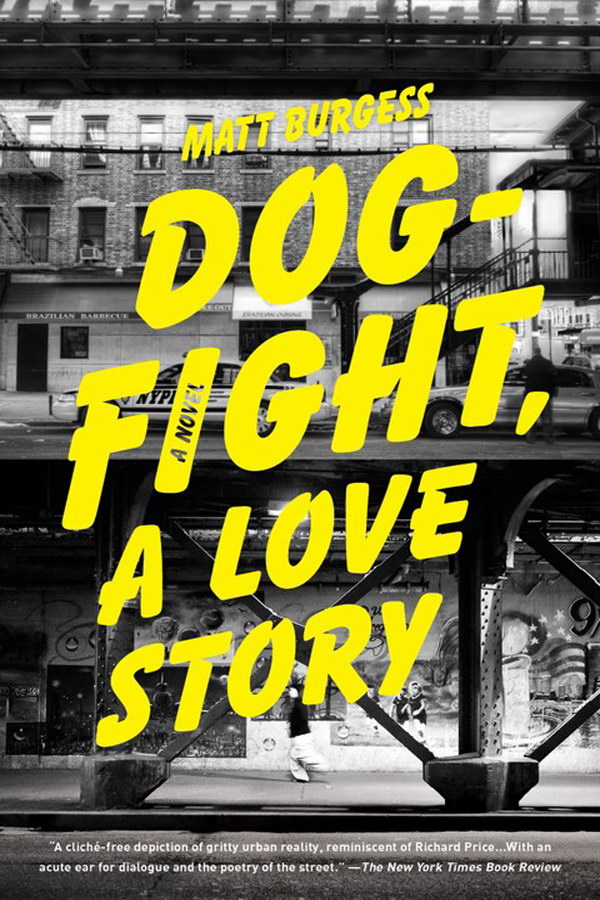
Dogfight Font
BookDogfight, A Love Story is a novel by Matt Burgess, published in 2018. The story follows two young men, Dwayne and James, who become involved in a dangerous underground dogfighting ring in New York City.
The book title "Dogfight, A Love Story" has been written in Balloon Extra Bold font. Balloon is an informal script typeface, designed by Max R. Kaufmann in 1939. You can learn more about the font here.